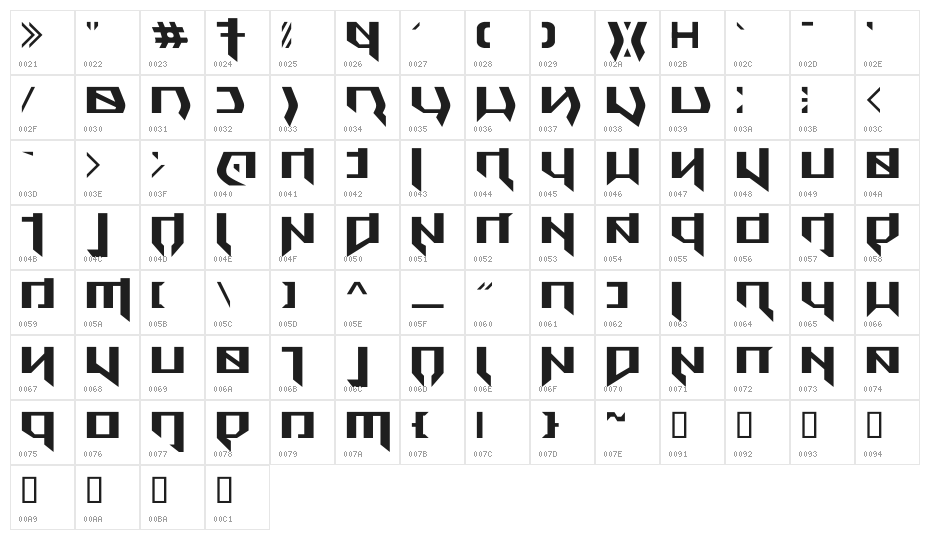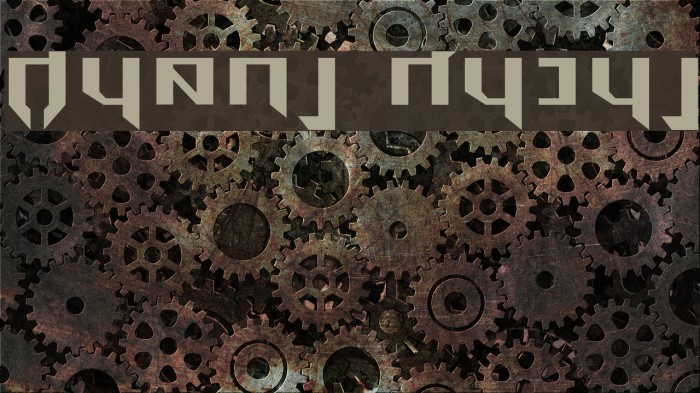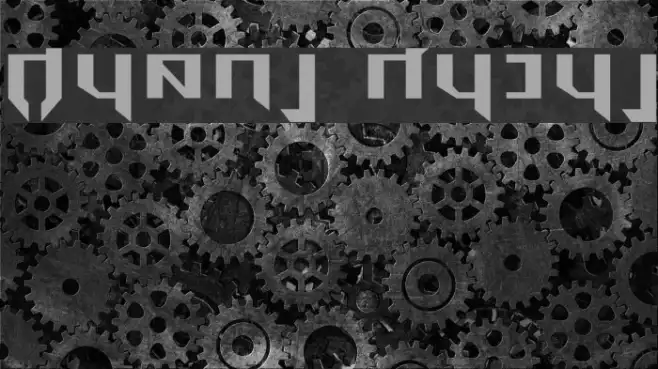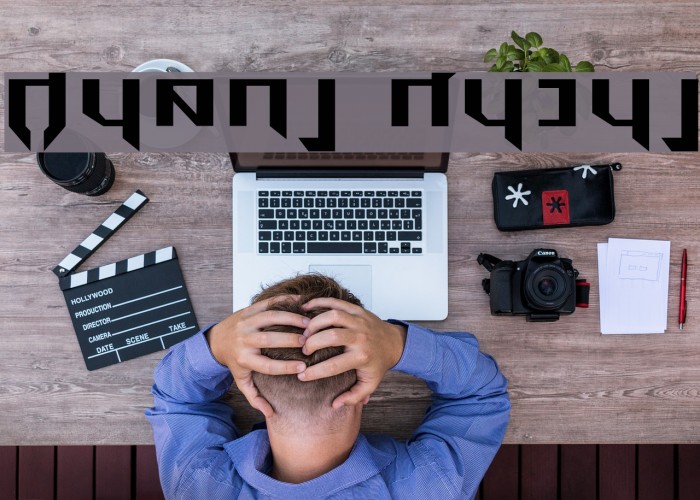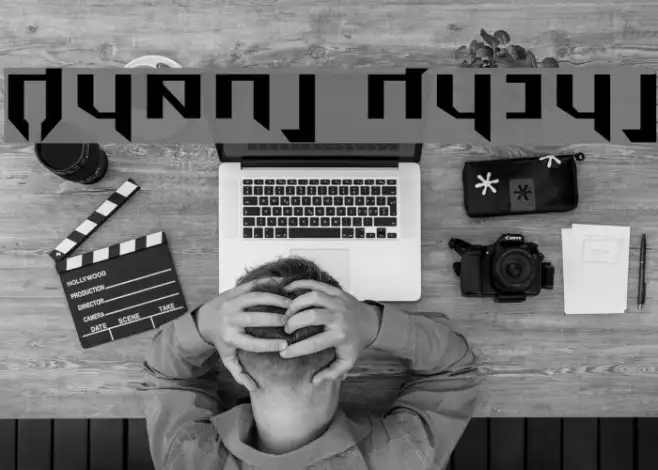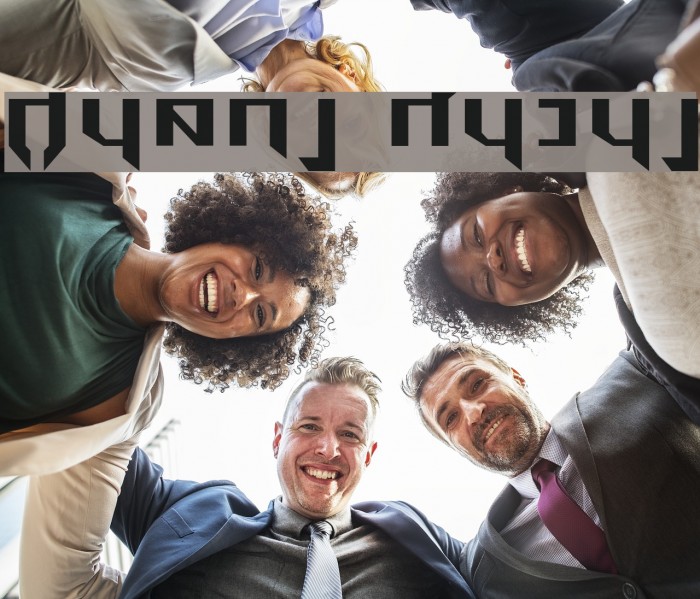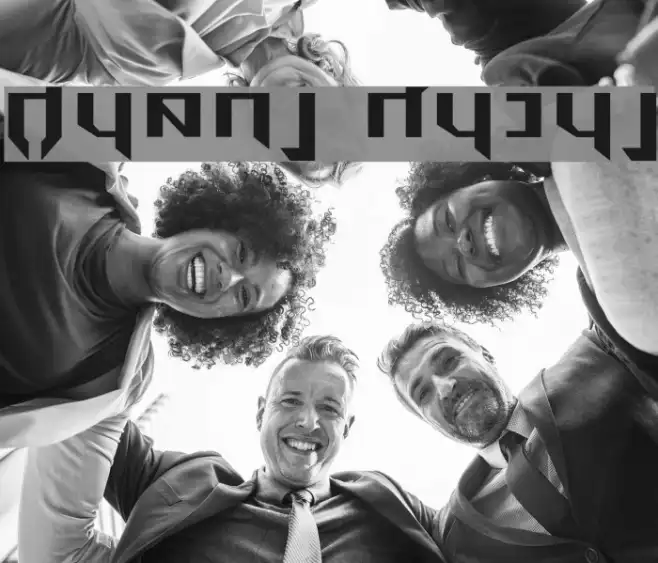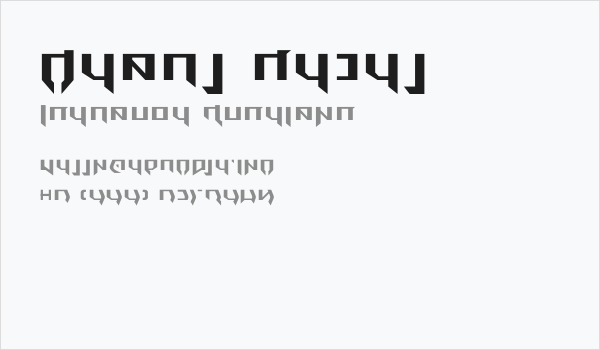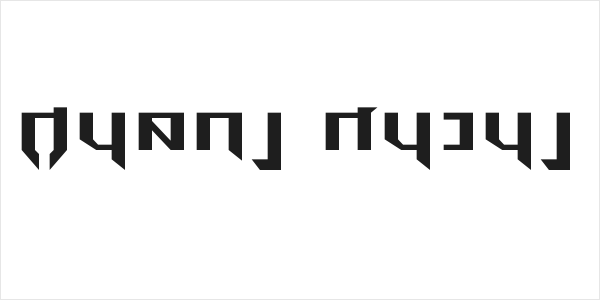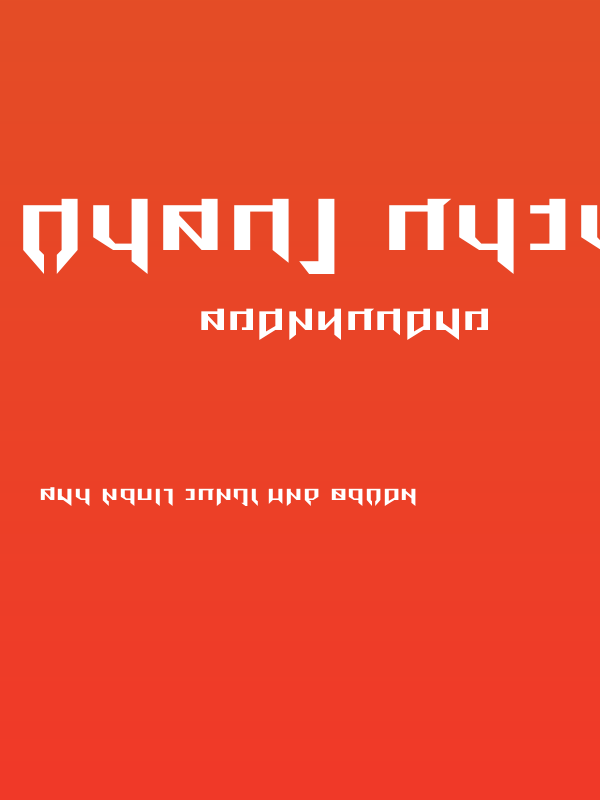
Metal Rebel Font
Metal Rebel Description
This font features a bold, angular design with sharp edges and a futuristic aesthetic. The characters are constructed with a geometric precision, giving them a mechanical and industrial feel. The uppercase and lowercase letters maintain a consistent style, with the lowercase being slightly smaller but equally bold. Numbers and special characters follow the same design principles, ensuring uniformity across the typeface. The overall look is striking and modern, making it ideal for projects that require a strong visual impact.
| Proposed Projects | Ideal for use in video game titles, sci-fi movie posters, branding for tech companies, or any project needing a modern, edgy look. |